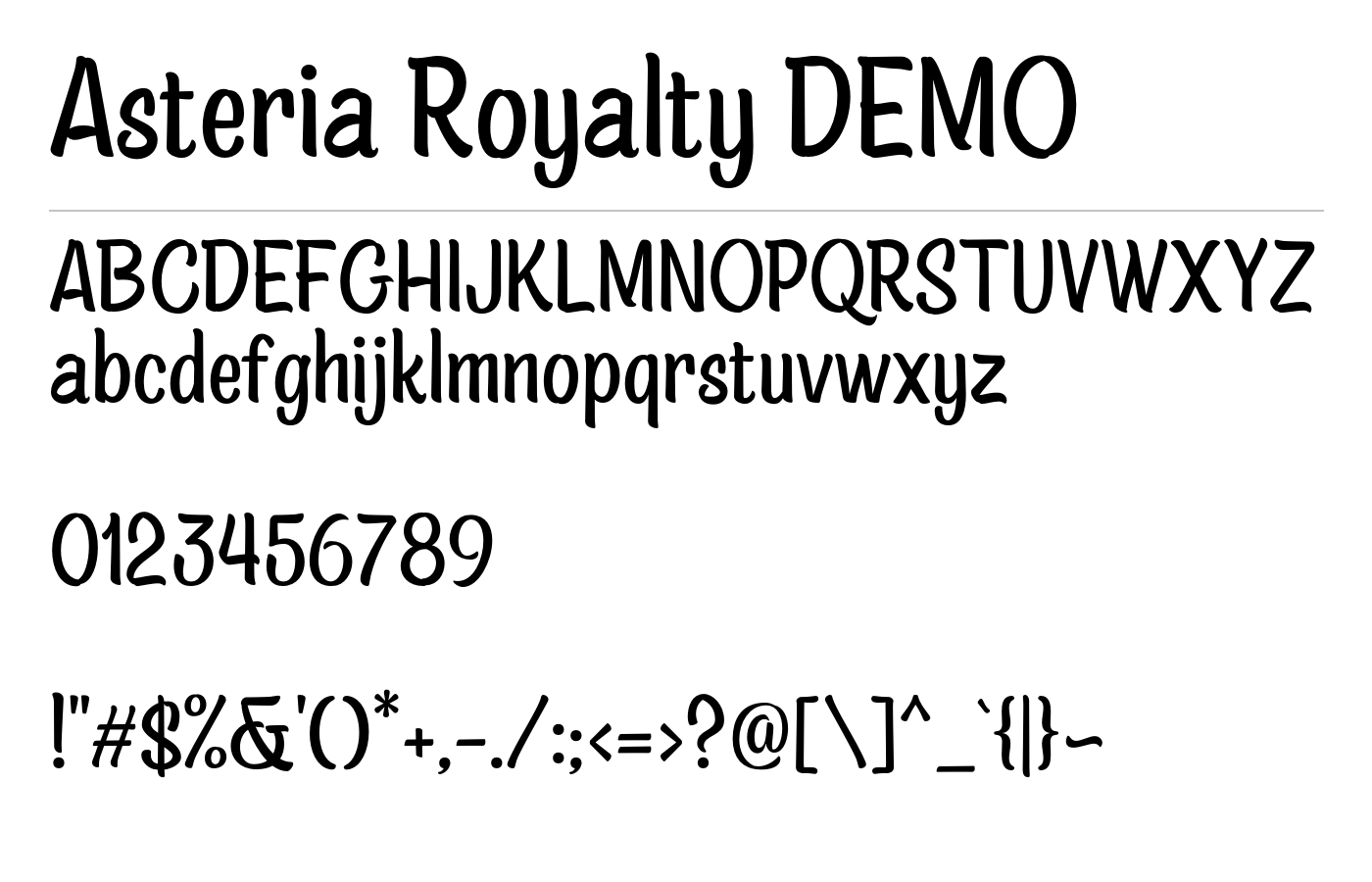
Asteria Royalty DEMO is a playful and casual sans serif font with a hand-drawn feel, featuring medium weight and slightly condensed letterforms with smooth, rounded strokes. Its quirky character shapes and moderate contrast make it ideal for fun, approachable designs, perfect for children’s books, informal branding, and creative headlines where a friendly, inviting tone is desired.
Asteria Royalty DEMO Font
About Asteria Royalty DEMO Font
| Font family | Asteria Royalty DEMO Font |